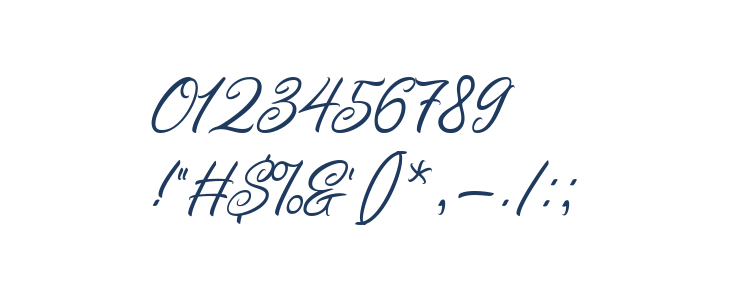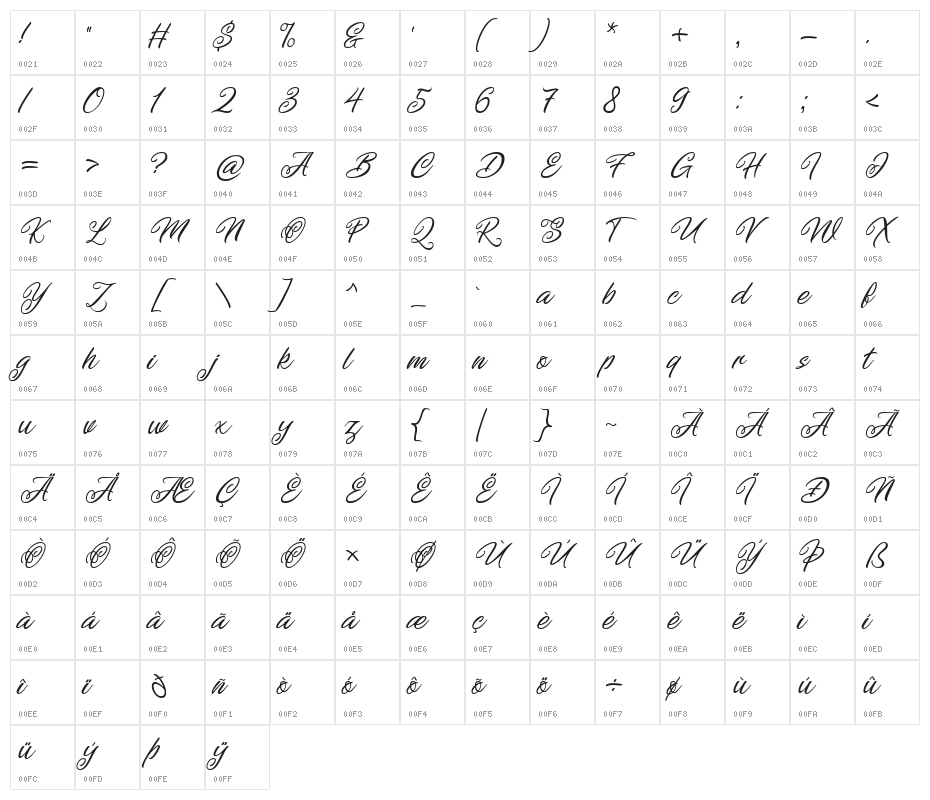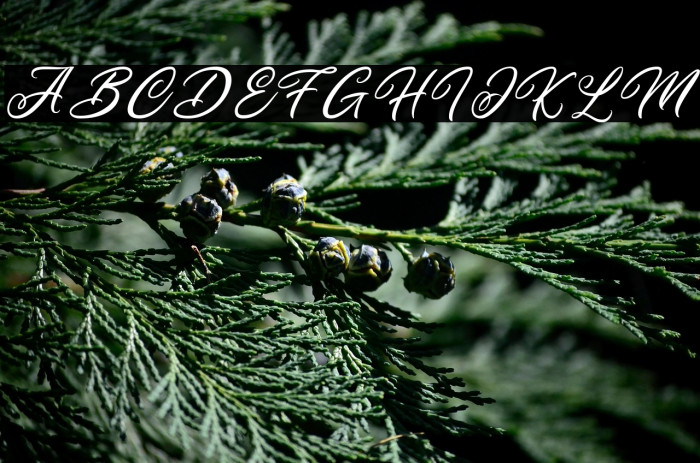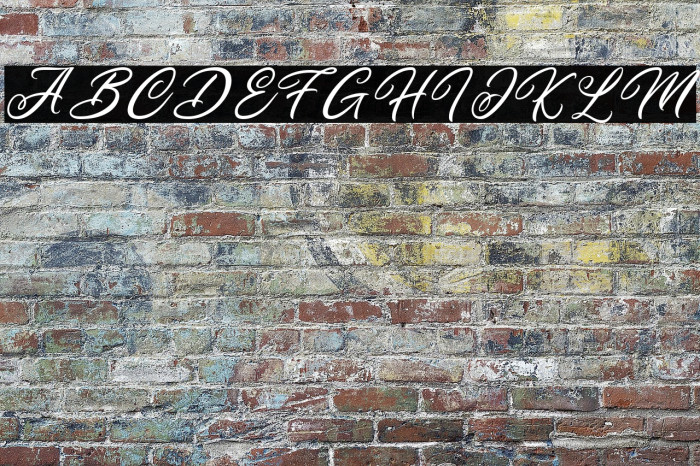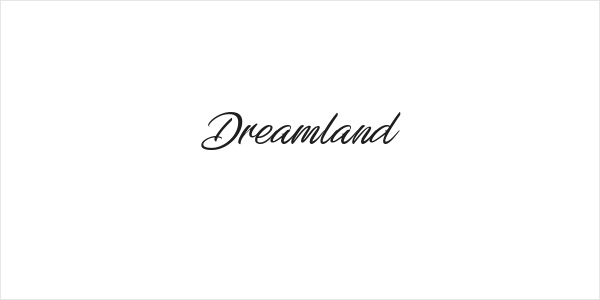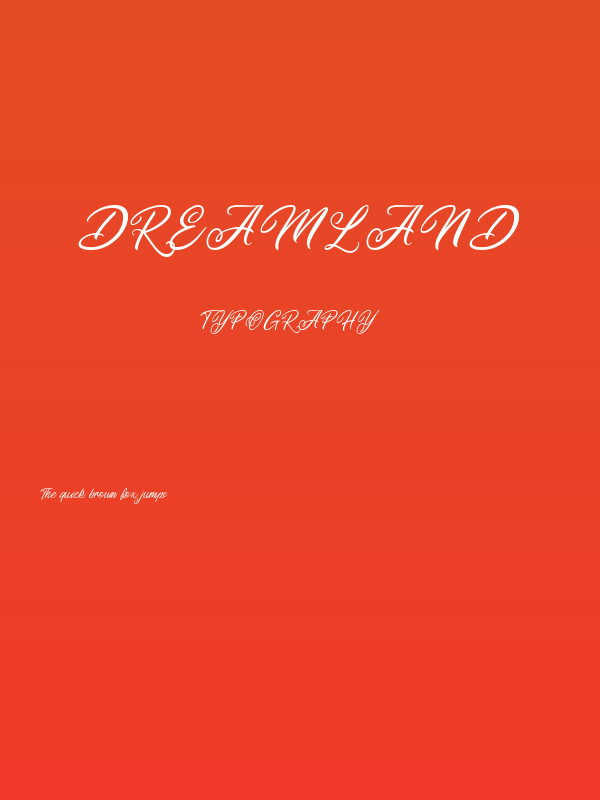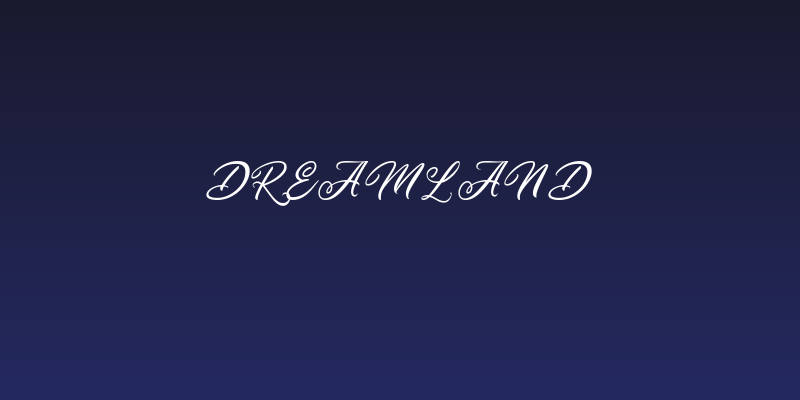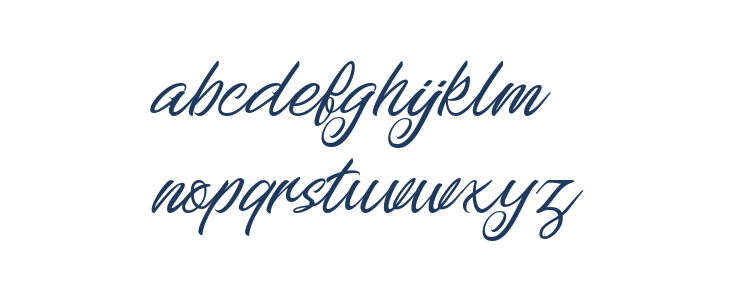
Dreamland Font
Dreamland Description
This elegant script font features flowing, cursive letters with a classic and sophisticated style. The uppercase letters are ornate and graceful, with sweeping curves and loops that add a touch of formality. The lowercase letters maintain a consistent flow, enhancing readability while preserving the decorative nature of the script. Numbers and special characters are designed to complement the overall aesthetic, ensuring a cohesive look across all text elements. The font's smooth lines and balanced proportions make it suitable for a variety of design applications.
| Proposed Projects | Ideal for wedding invitations, elegant branding, greeting cards, and luxury product packaging. |